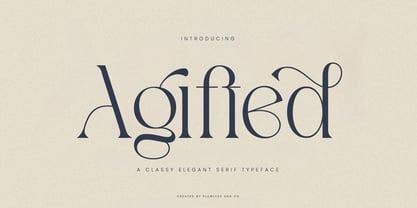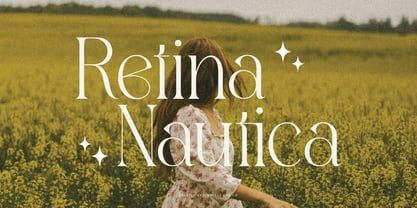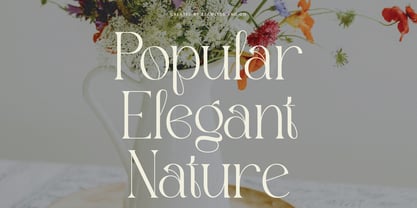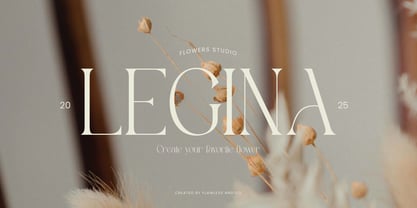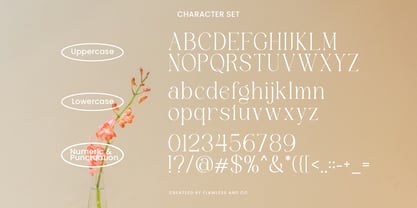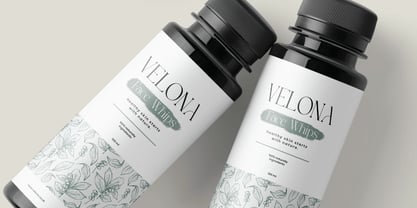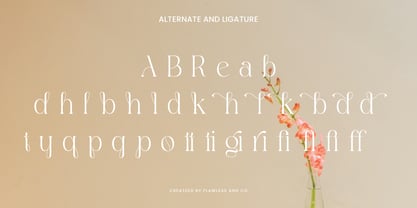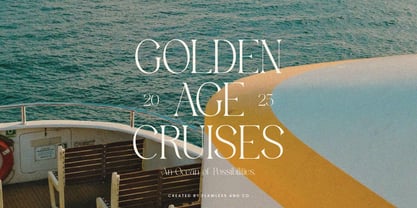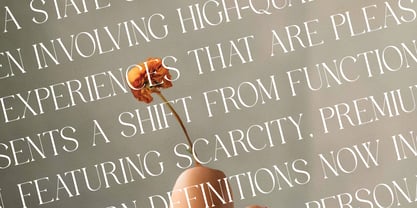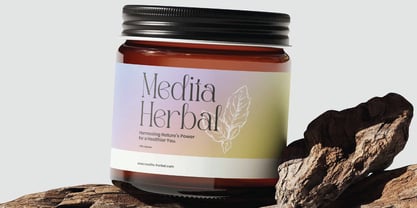
Agifted
The Agifted Font Family was designed by Achmad Yani and published by Flawlessandco. Agifted contains 1 styles. More about this family
Agifted is a classy and elegant serif font that brings a sophisticated charm to any design. With graceful curves and timeless letterforms, this font is perfect for high-end branding, editorial layouts, wedding invitations, fashion magazines, and luxury packaging. Its sophisticated aesthetic makes it ideal for projects that require a luxurious and sophisticated look. Let Agifted elevate your typography with elegance and style. Features : Multilingual, Uppercase alphabet A-Z, Lowercase alphabet a-z, Numbers 0-9, Some punctuation, Alternates & Ligatures NOTE: For all the characters are also available, accessible in the Adobe Illustrator Glyphs Panel, or in Adobe Photoshop Character Open Type Panel. If you need help, just write me! Thanks so much for checking out my shop!